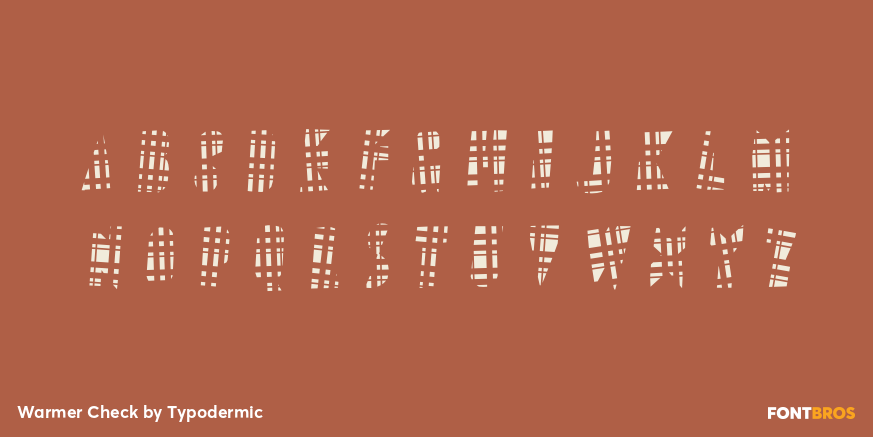
Warmer Check
Warmer Check provides the complementary field of compact rectangular marks in the family’s layered plaid system. Its fragments follow the same registered letter shapes as Solid and Cross, allowing the small checks to sit precisely within a full silhouette or combine with the broader Cross component for a richer woven surface. Used alone, it produces an airy pattern of letter-shaped patches rather than conventional solid text.
Use Warmer Check as an accent layer for textile branding, flannel and wool campaigns, winter packaging, resort merchandise, fabric launches, and animated plaid reveals. Match its size, position, tracking, and line spacing exactly to the other Warmer styles. Solid anchors the word with a complete base color, while Cross adds the broader intersecting bands; together the three layers create the family’s fullest checked treatment.